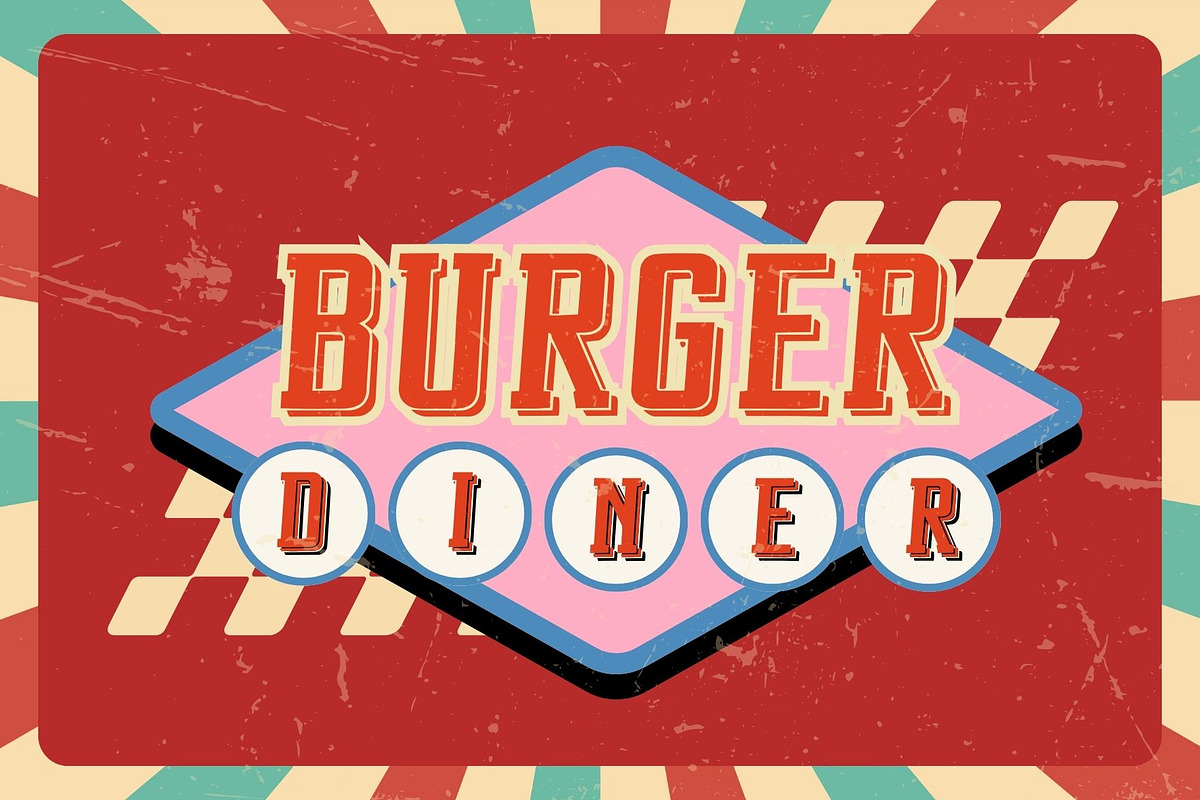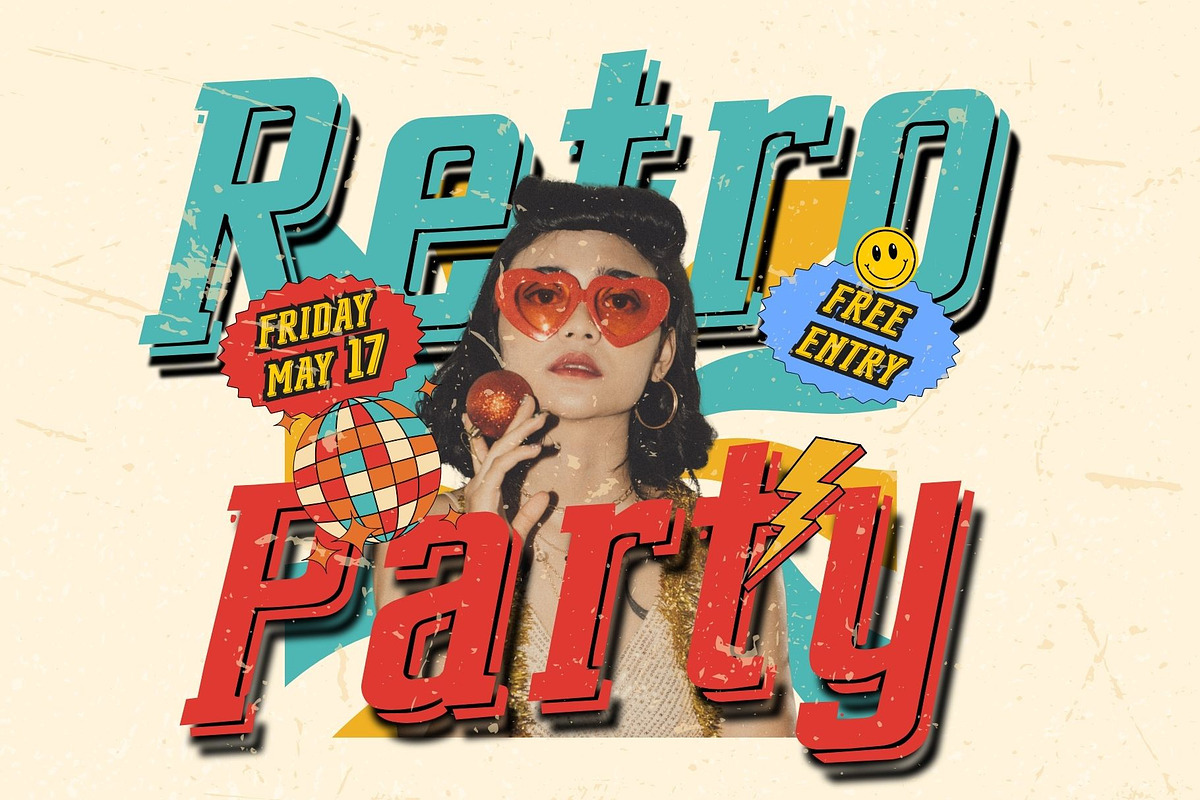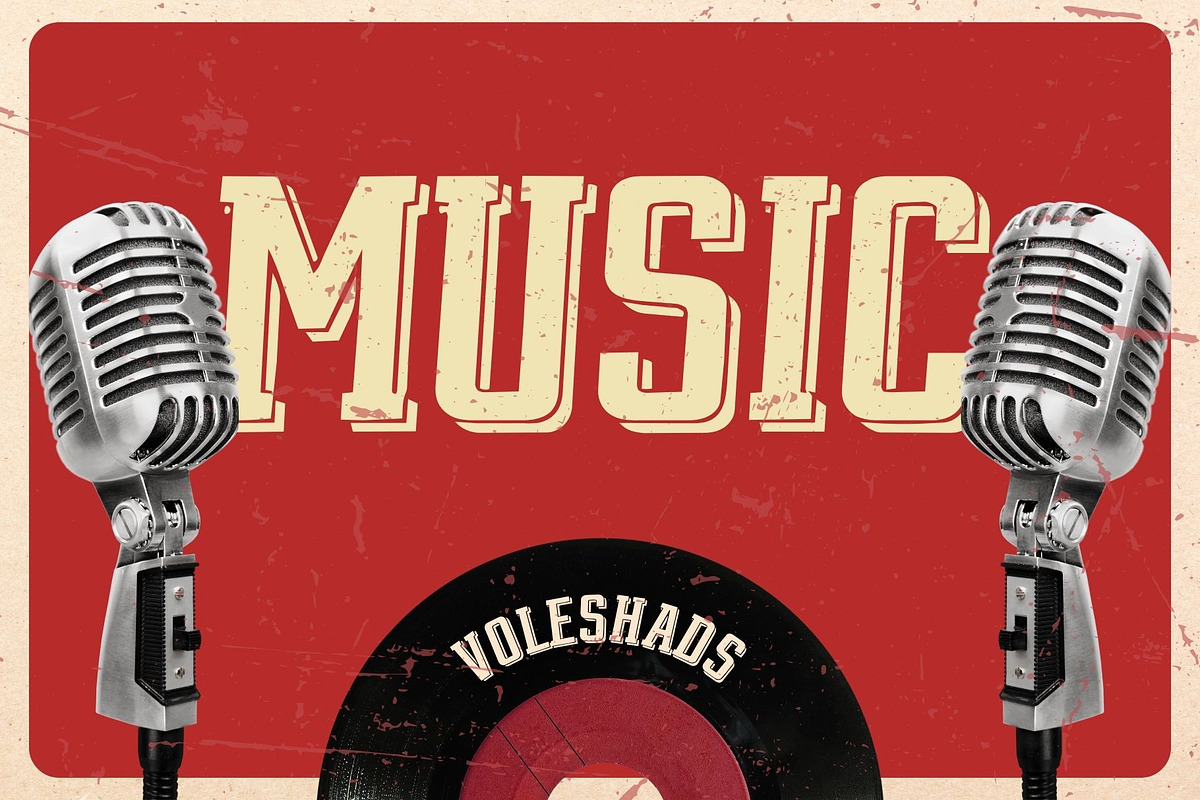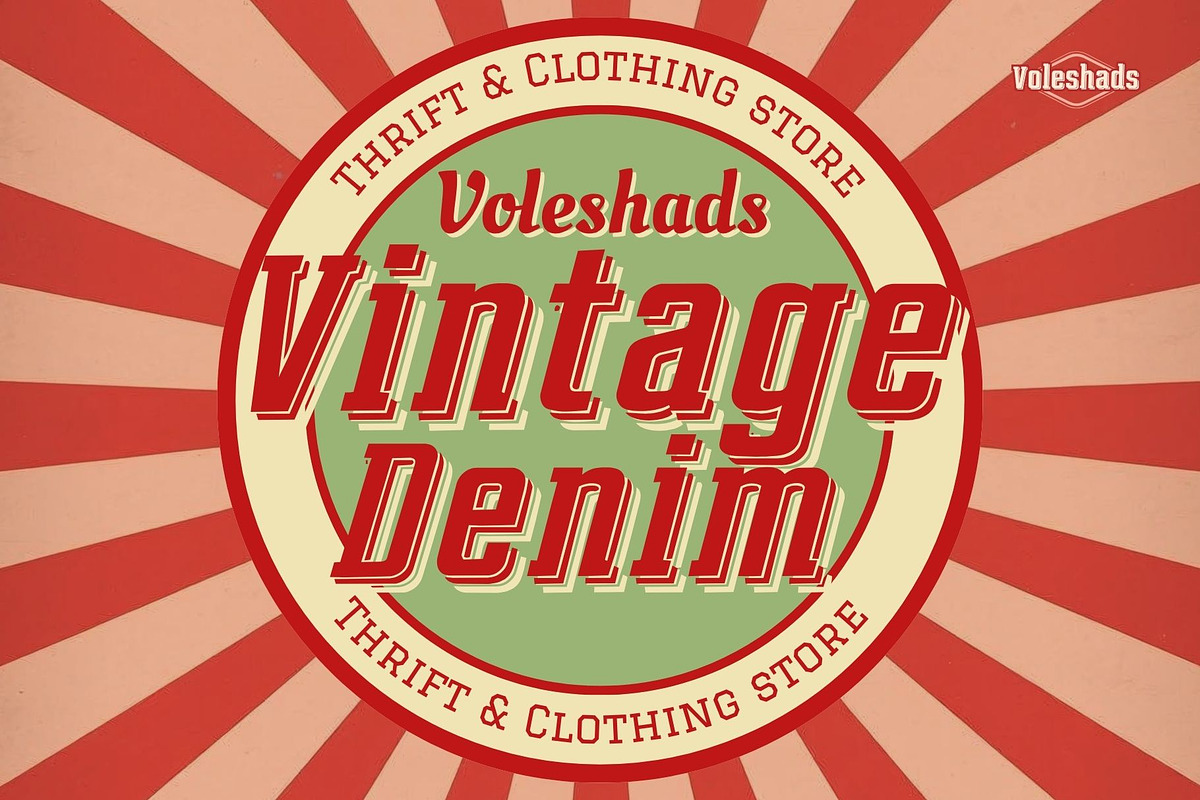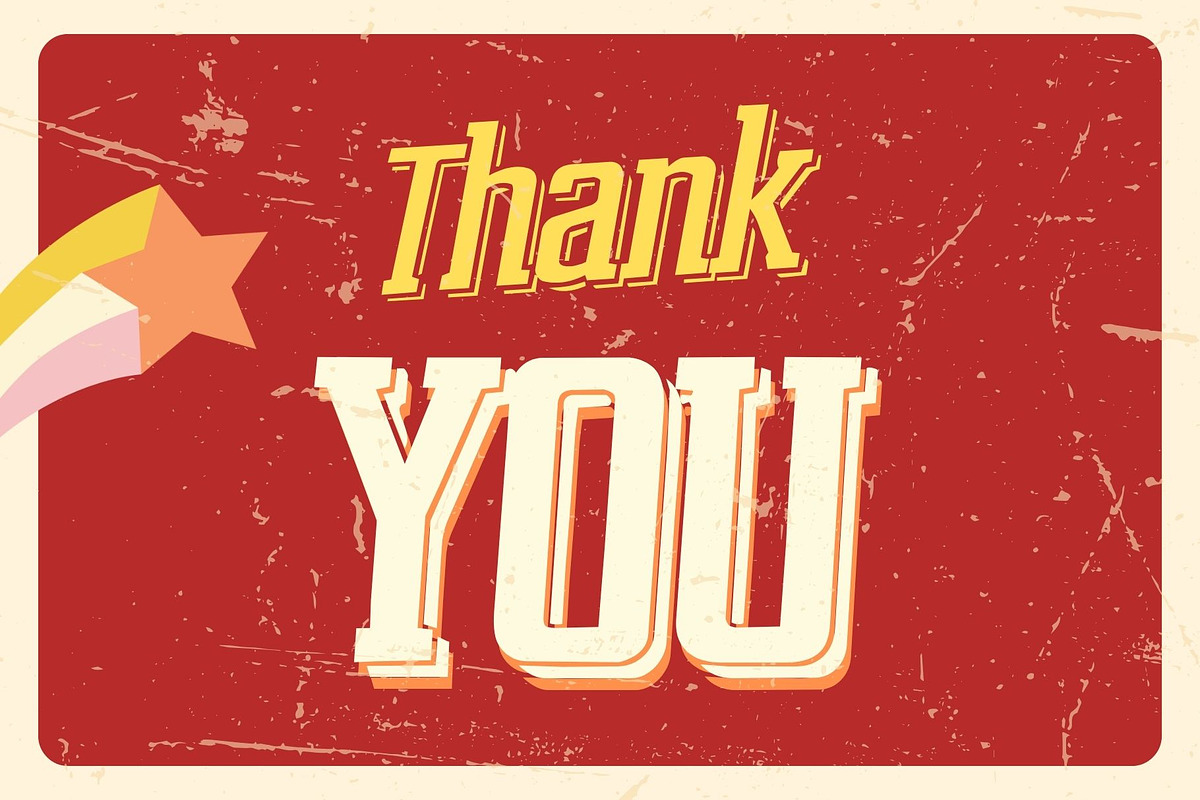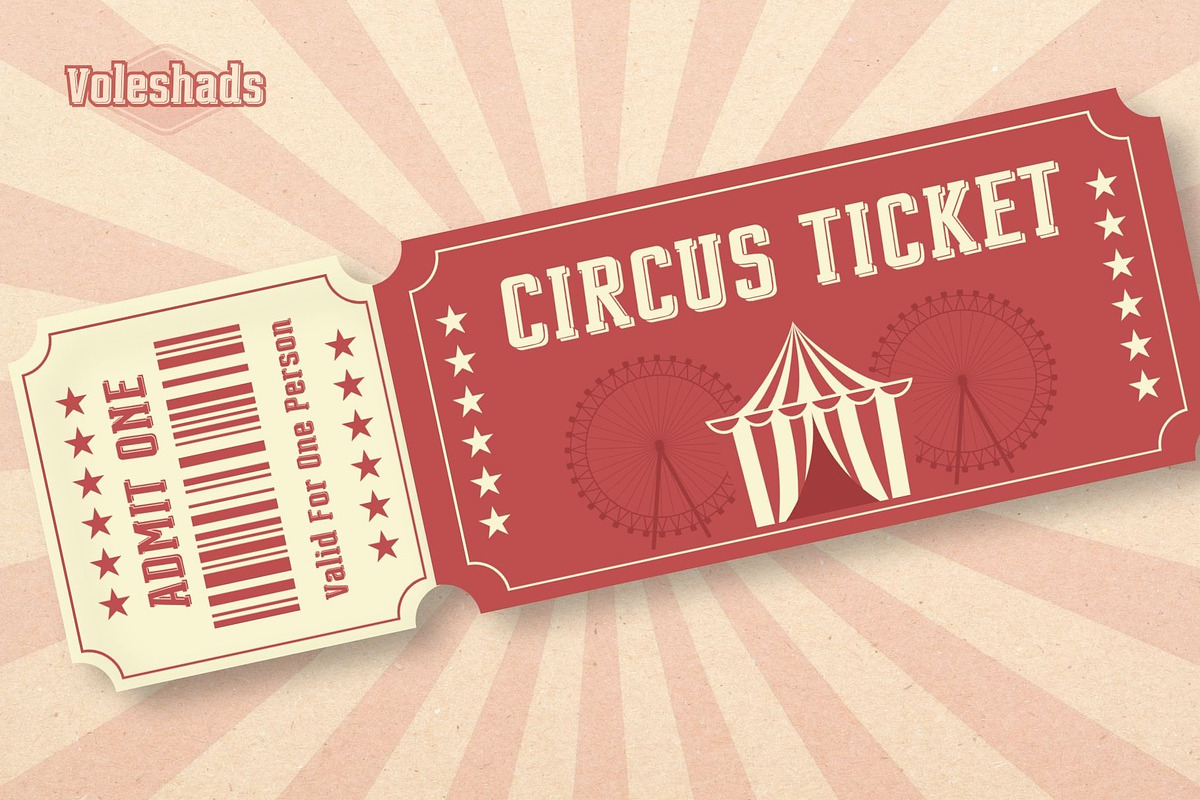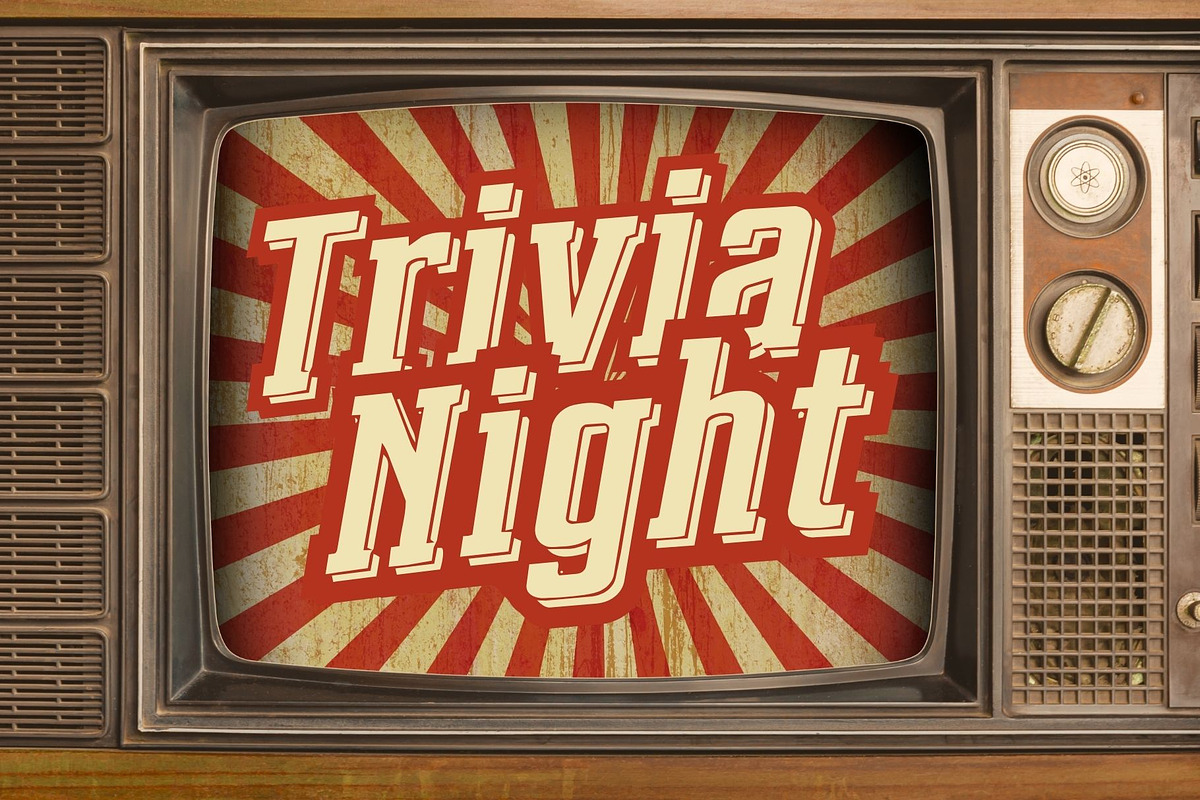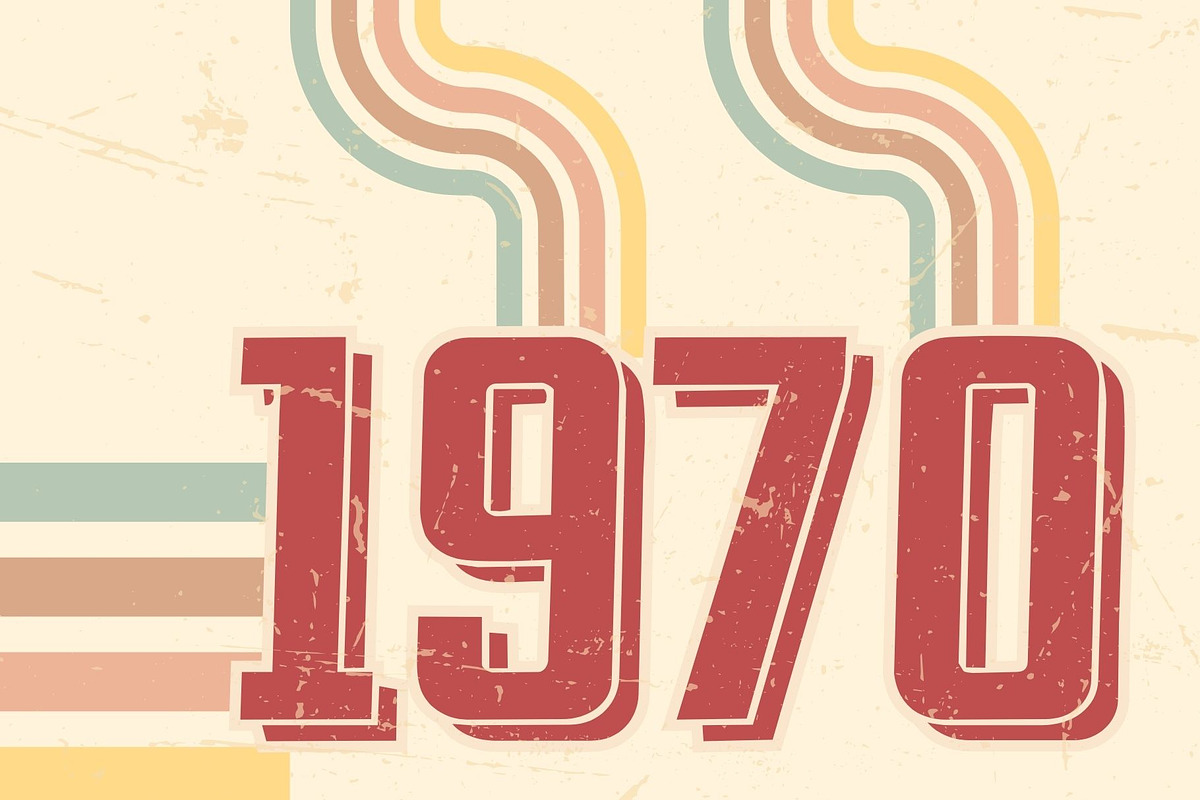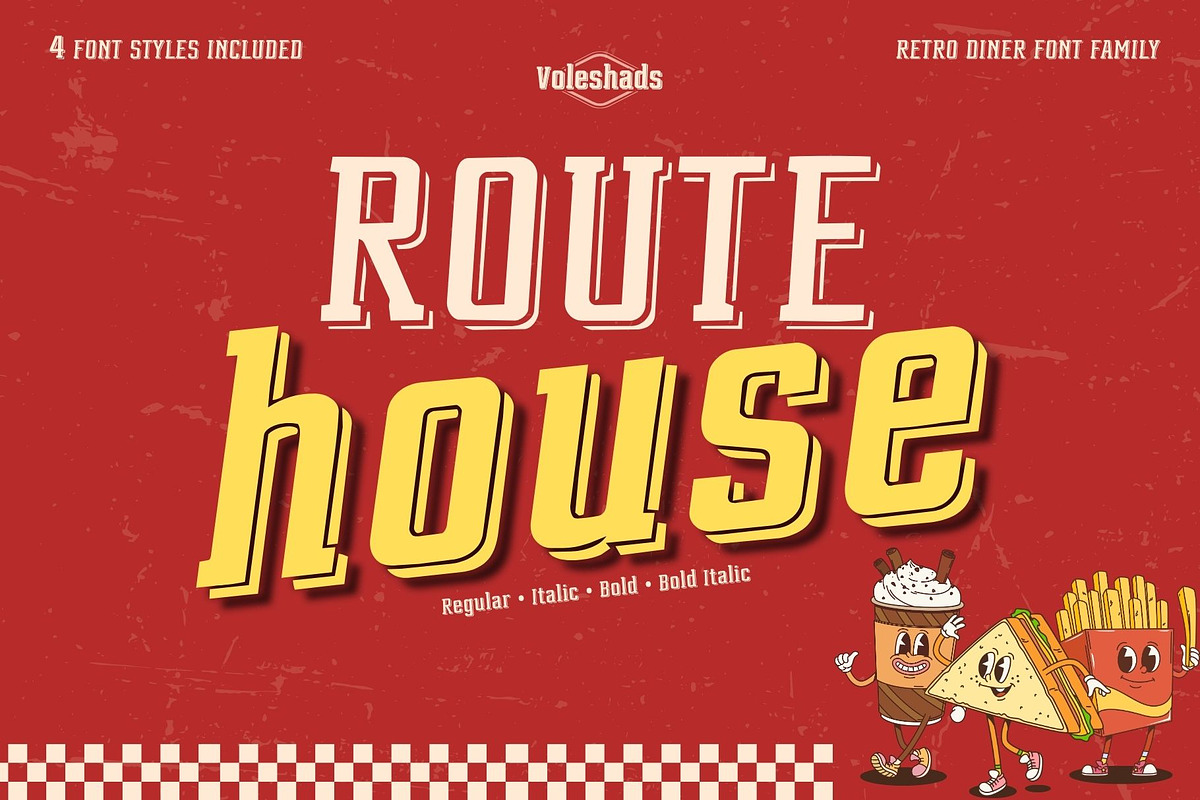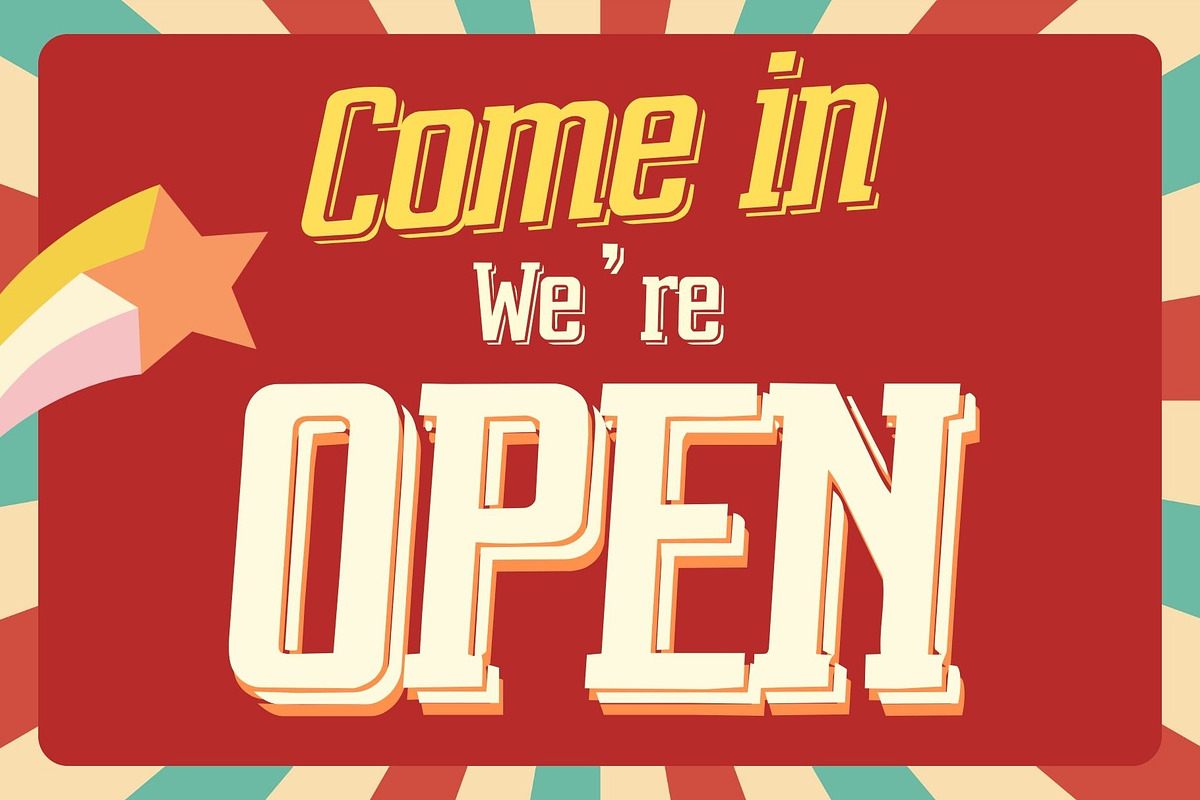
Route House Retro Diner Font Family
Route House will bring life to all your creations with its bold and vintage look. Route House font has bold slab-serif shapes, friendly curves, playful italic style, and strong vintage personality.